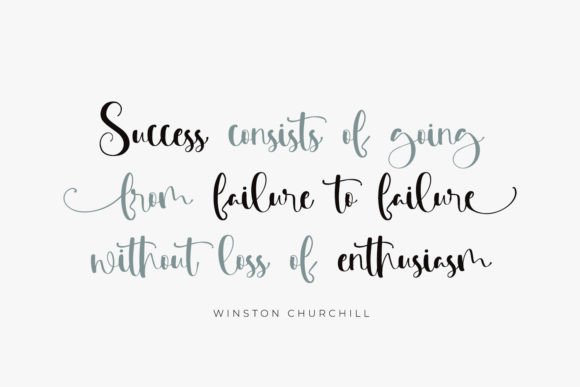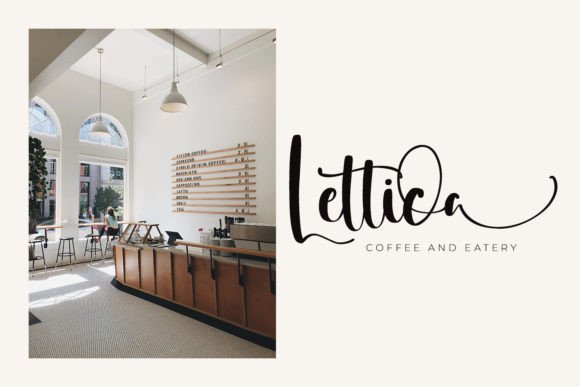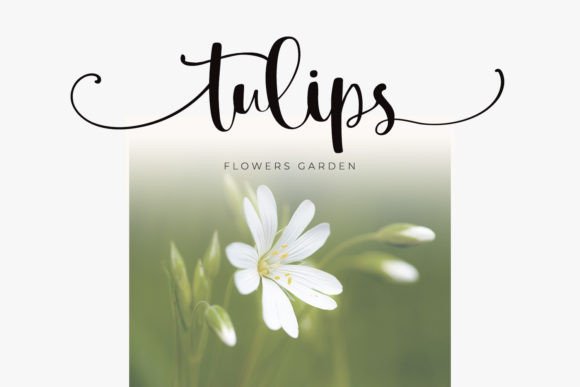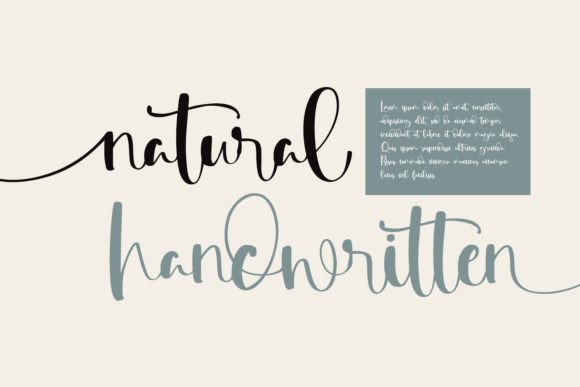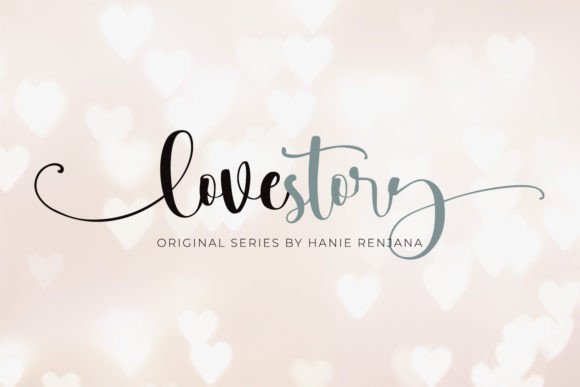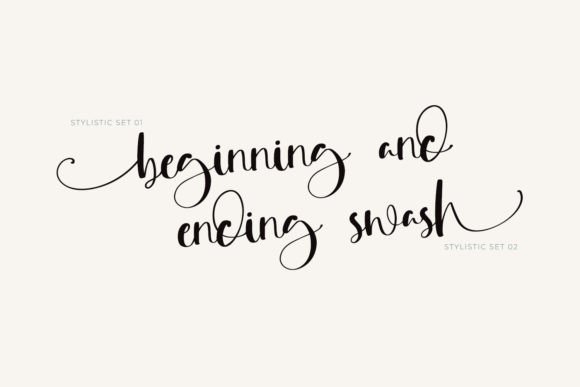
Introduction to Family Hug Font
Have you ever stared at a blank page, trying to find the perfect font to capture the essence of your creative project? For designers, the right font can make all the difference between a good design and a great one. That’s where the Family Hug Font comes in – a high-level script font that’s sure to bring a touch of warmth and personality to your designs.
With its unique, handwritten style and calligraphy nuances, the Family Hug Font is a valuable resource for any designer looking to add some visual interest to their work. Whether you’re working on a logo, a social media graphic, or a brochure, this font is sure to help you stand out from the crowd.
And the best part? The Family Hug Font is available for free download, complete with a transparent background and a range of amazing glyphs and ligatures that are easy to access thanks to its PUA encoding.
Key Features of Family Hug Font
- Unique characteristics include rounded edges, friendly feel, and versatility in conveying emotions and tone.
Honest Review: Family Hug Font
I recently stumbled upon the Family Hug Font, a free download that has been making waves in the design community. As a designer, I’m always on the lookout for high-quality resources to elevate my creative projects.
Here’s what I think:
- ✨ The Family Hug Font has a beautiful, cursive design that exudes warmth and approachability. It’s perfect for projects that require a personal touch.
- ⚠️ The font is only available in a few weights, which might limit its versatility in certain design applications.
- ⚠️ Some of the characters may not display correctly in certain font sizes or resolutions.
Overall, the Family Hug Font is a solid addition to any design resource library. While it’s not perfect, its unique design and free download make it a great choice for designers working on creative projects. With a little tweaking, this font could be a game-changer for many designers.
The Family Hug Font is a beautiful, high-quality design resource that is perfect for any creative project. This free download features a transparent background, making it easy to incorporate into your designs.
Tips for Getting the Most Out of Family Hug Font
Use the Family Hug Font for titles, headings, and body text in your designs.
Combine the Family Hug Font with other design elements, such as graphics and images, to create a unique and eye-catching design.
Common Use Cases for Family Hug Font
Use the Family Hug Font in wedding invitations, baby shower invitations, and other special occasion invitations.
Use the Family Hug Font in greeting cards, postcards, and other paper crafts.